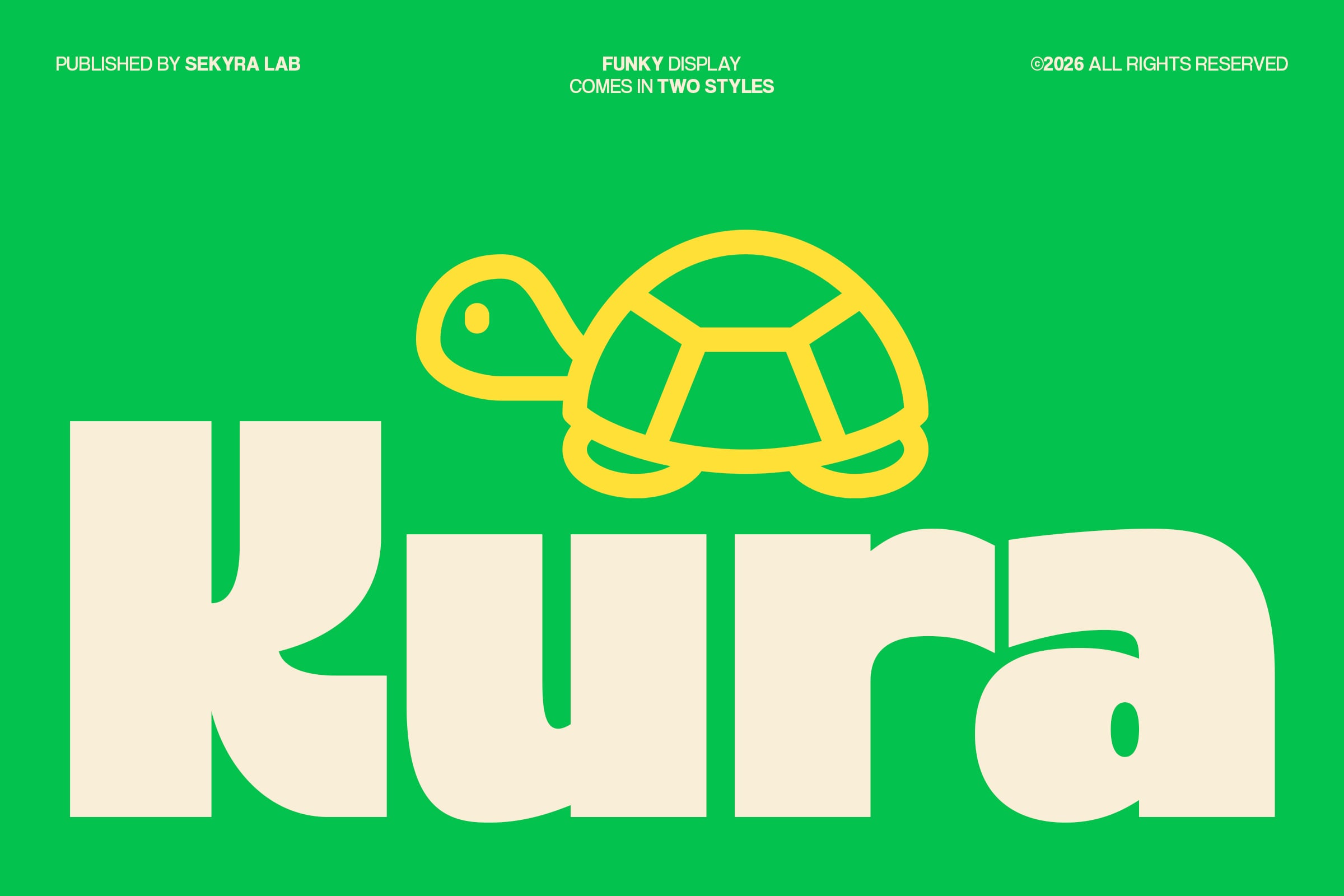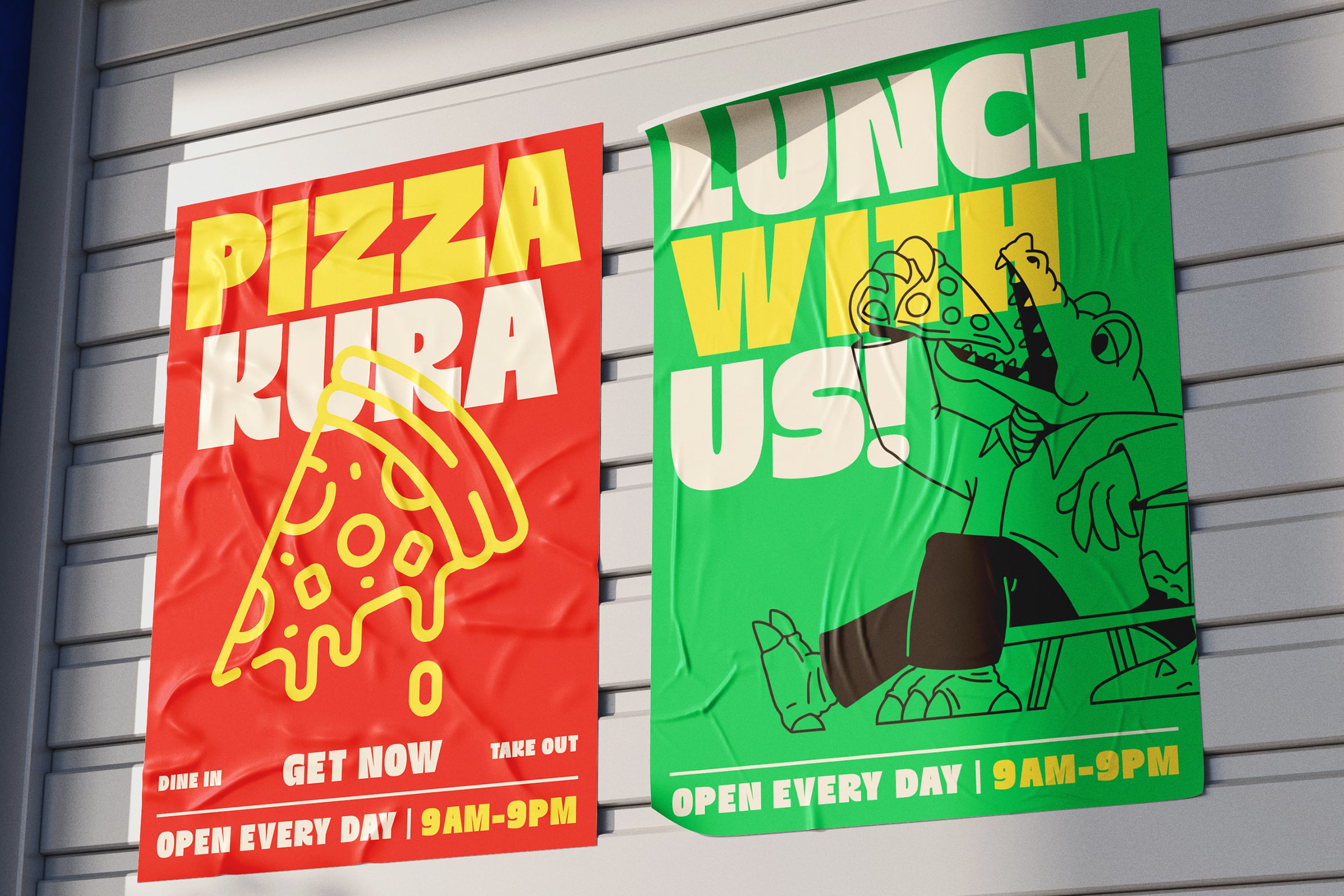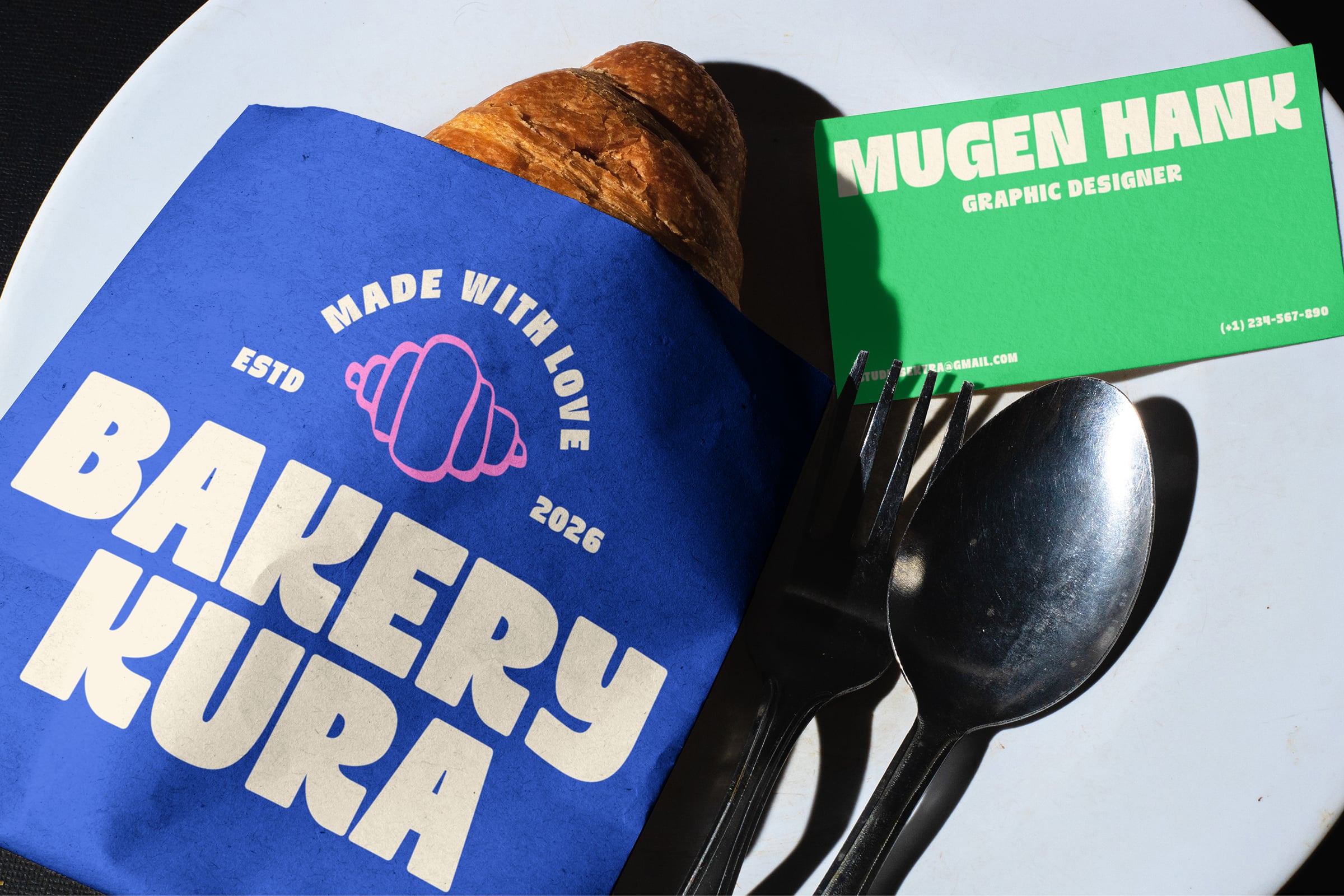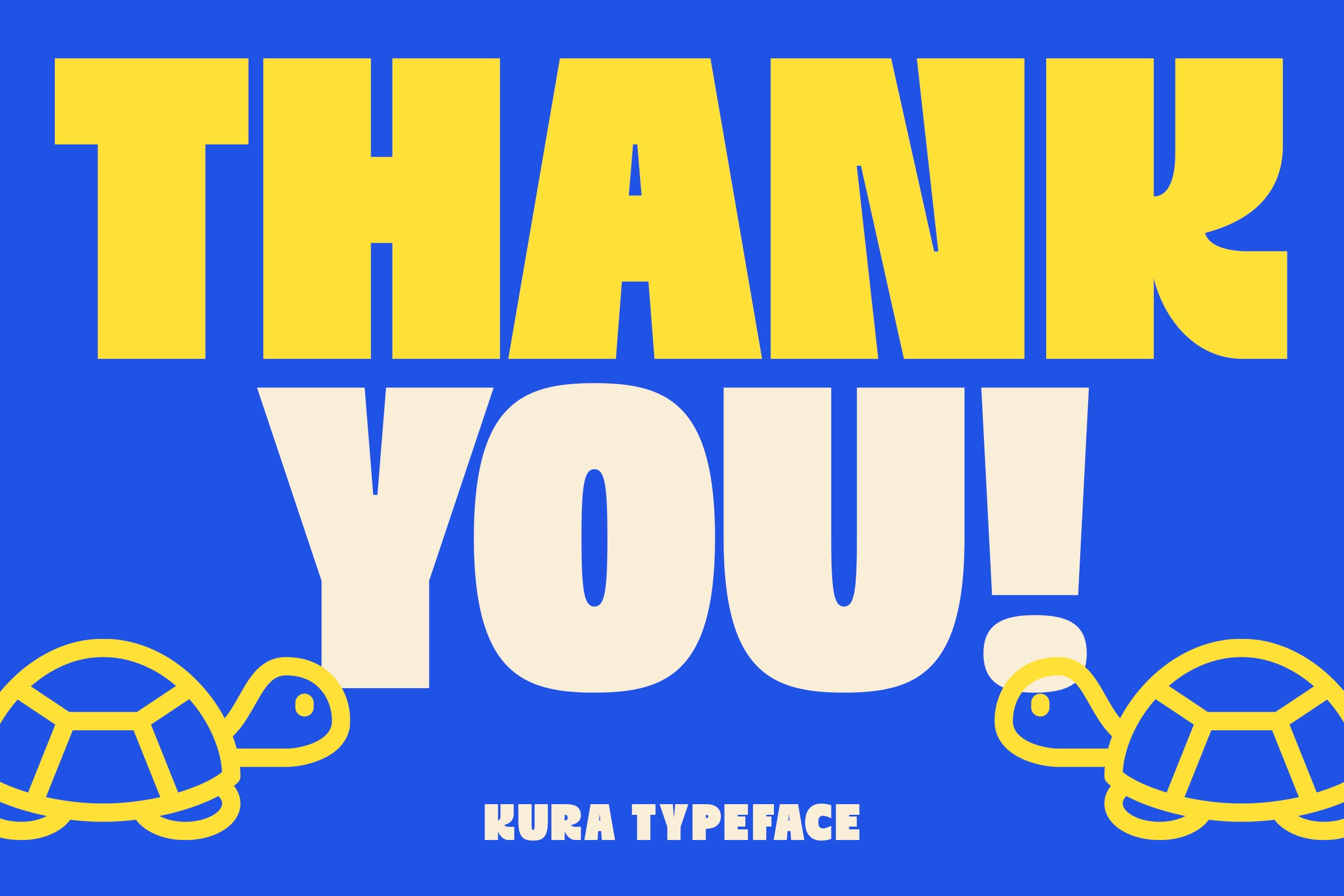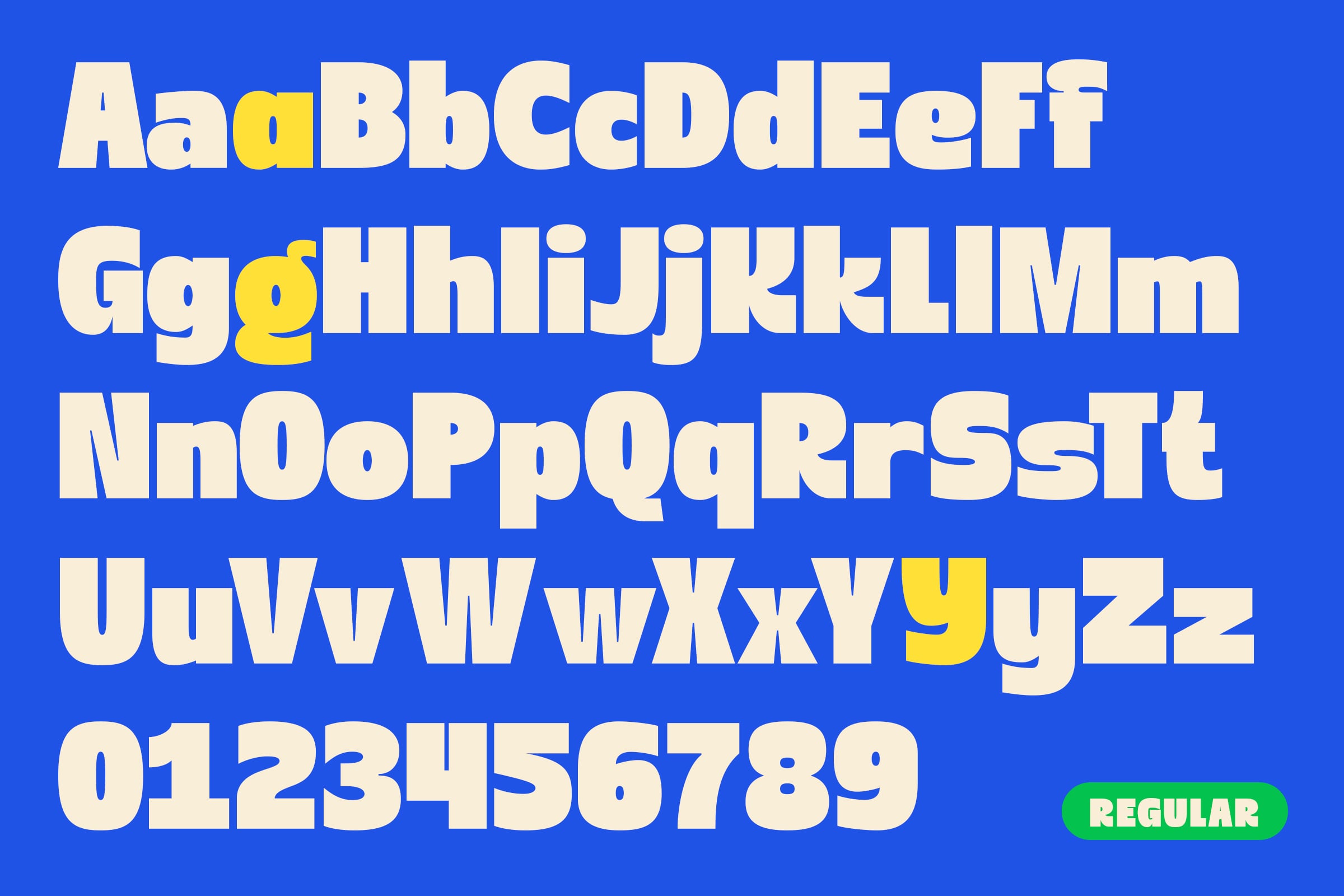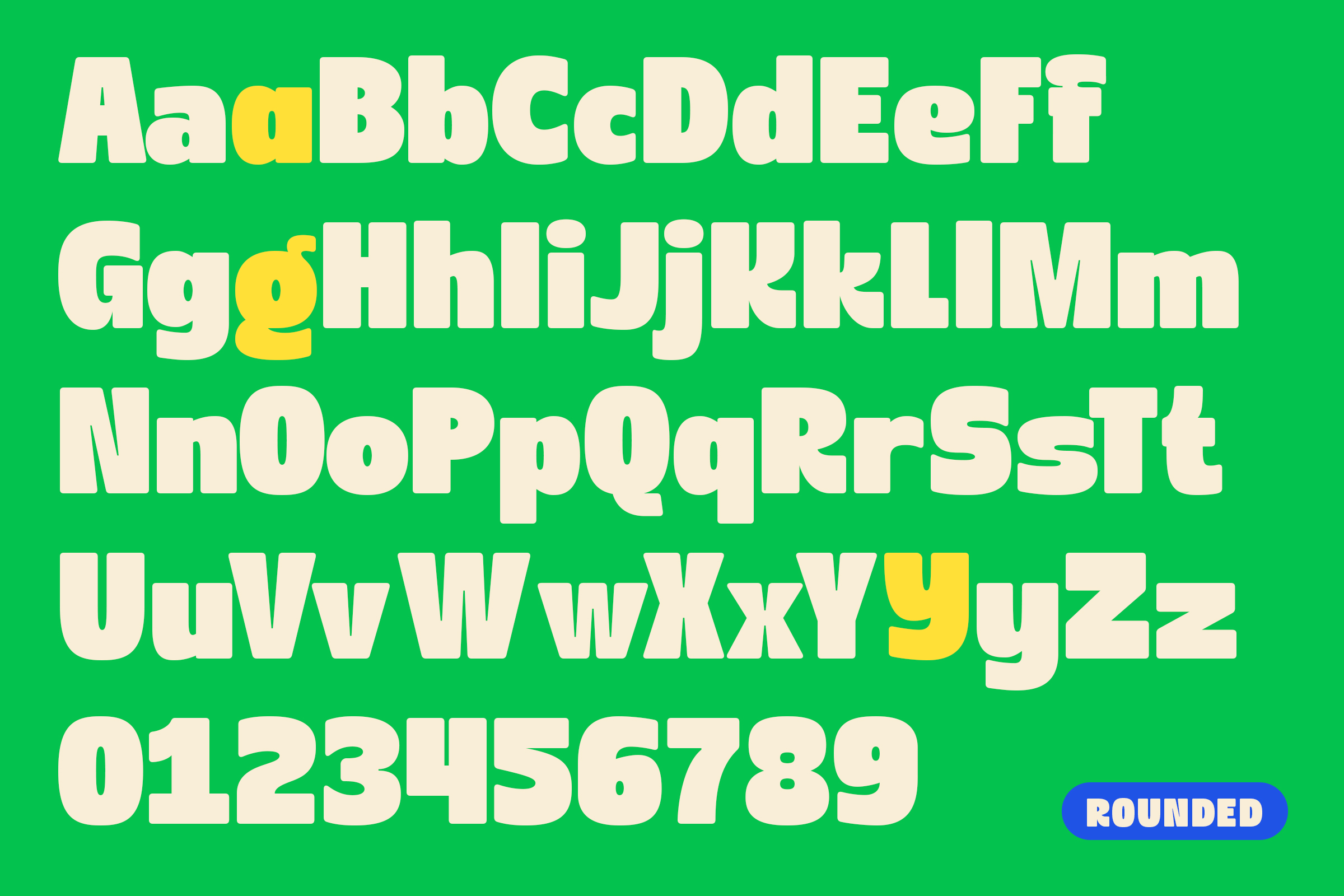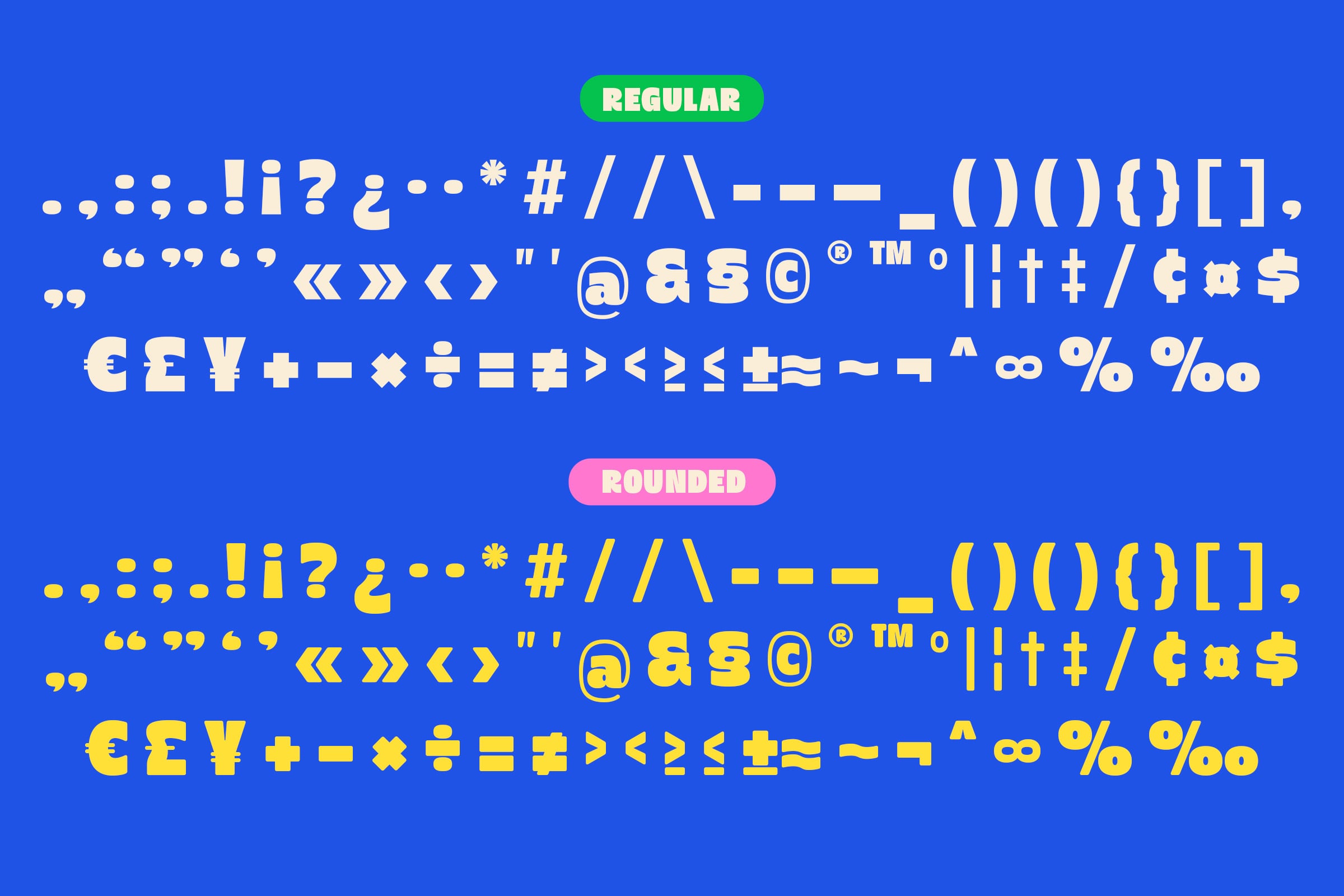
Kura is a bold funky display typeface designed to bring playful energy into modern layouts. With its chunky proportions, soft curves, and strong presence,..Kura instantly stands out in headlines and branding work.
Kura balances retro charm with modern simplicity, making it versatile for both expressive and clean compositions. Whether you're creating bold street-style graphics or playful branding, Kura delivers personality without losing readability.
This typeface comes in two distinct styles:
Regular – Clean, bold structure with confident geometric weight. Perfect for strong headlines, logo types, posters, and bold brand identities.
Rounded – Softer, friendlier version with smooth terminals and curved edges. Ideal for kids branding, lifestyle products, packaging, social media graphics, and cheerful visual systems.